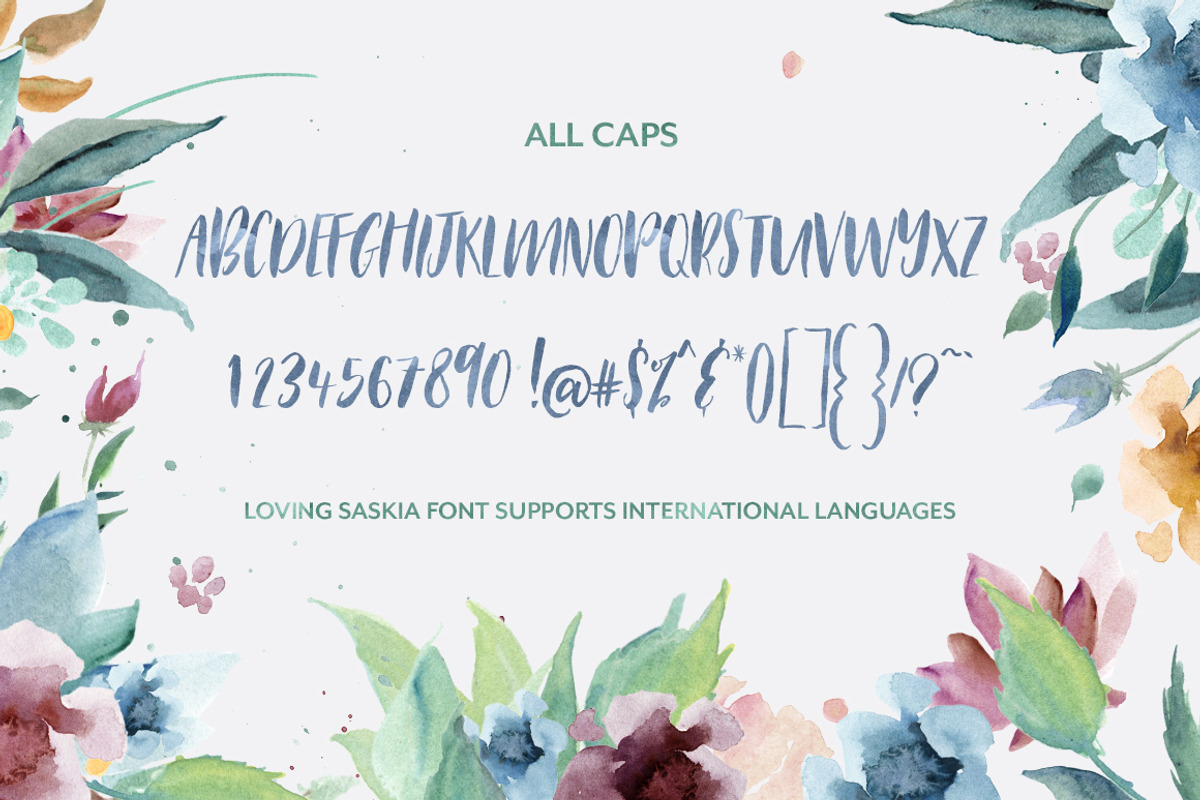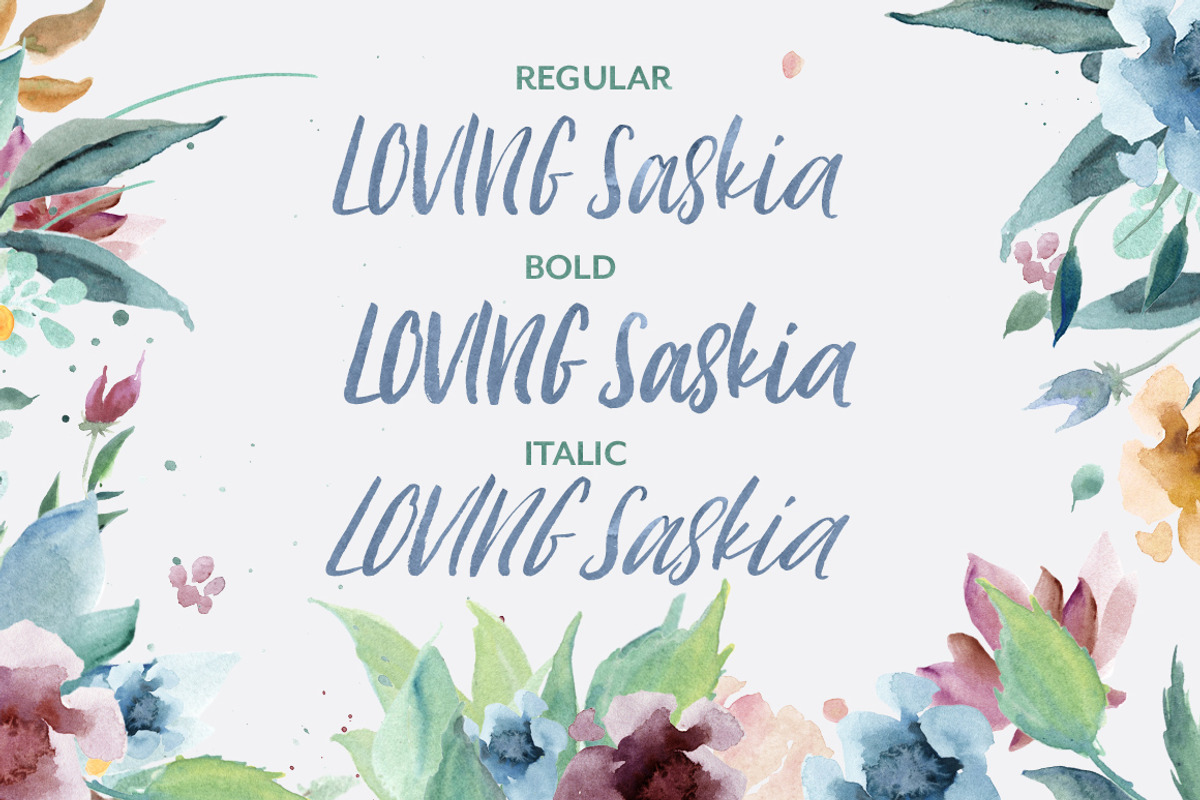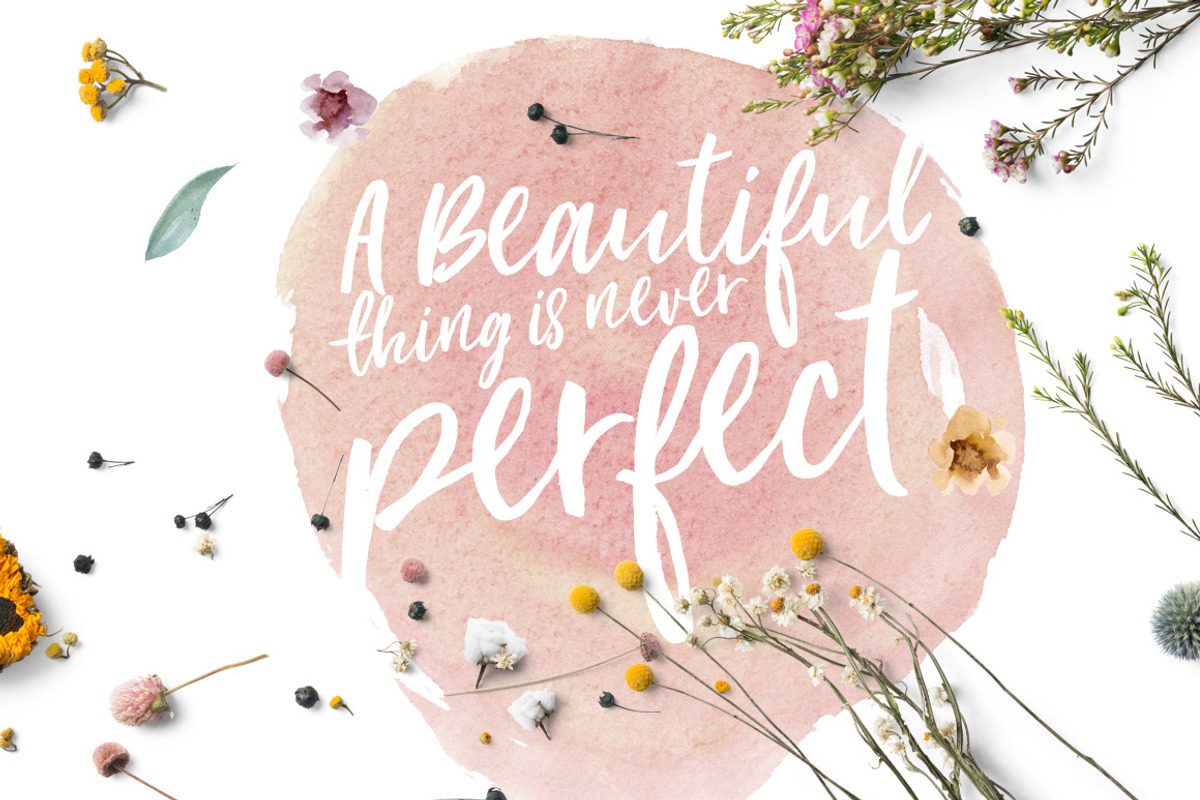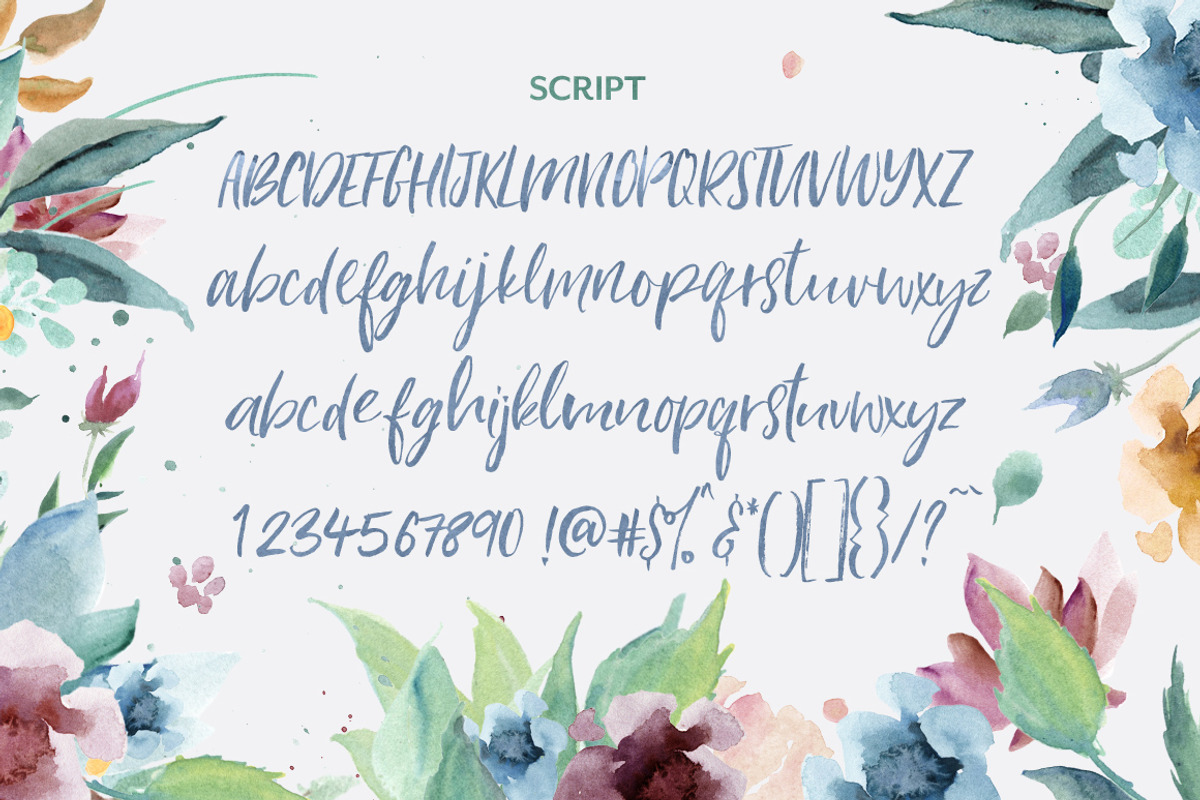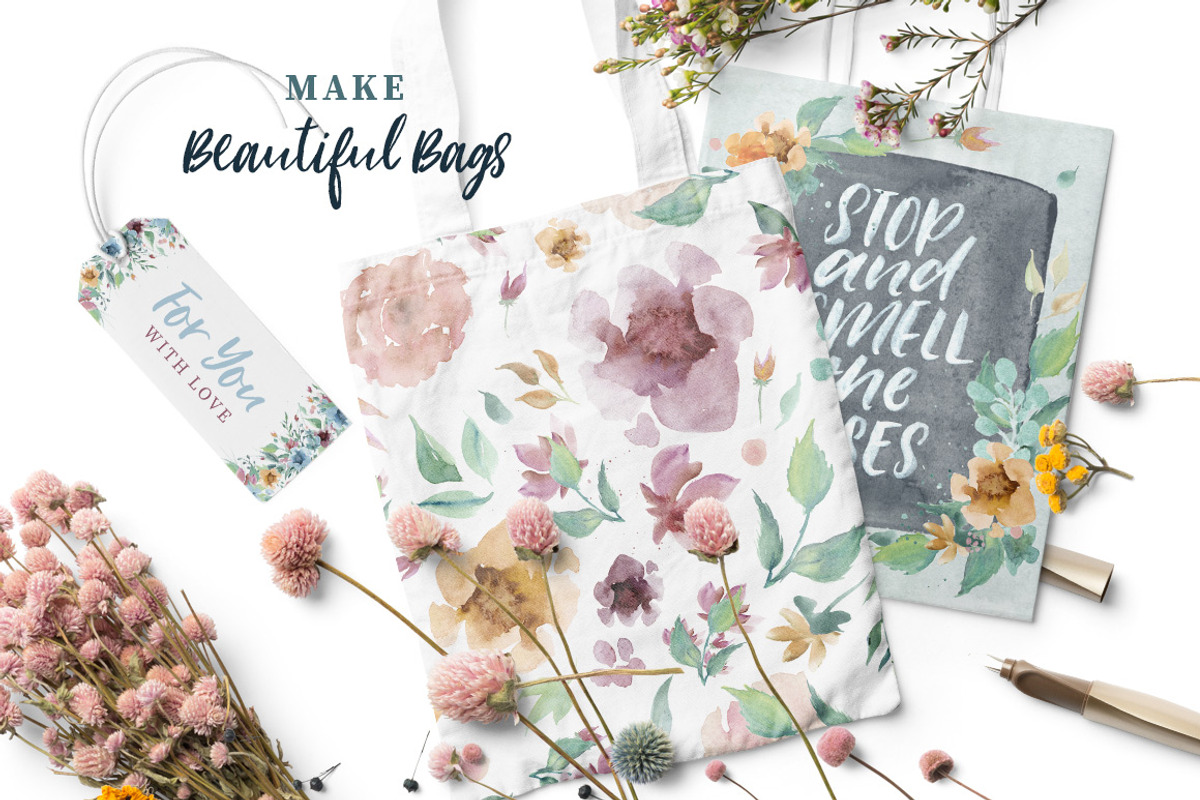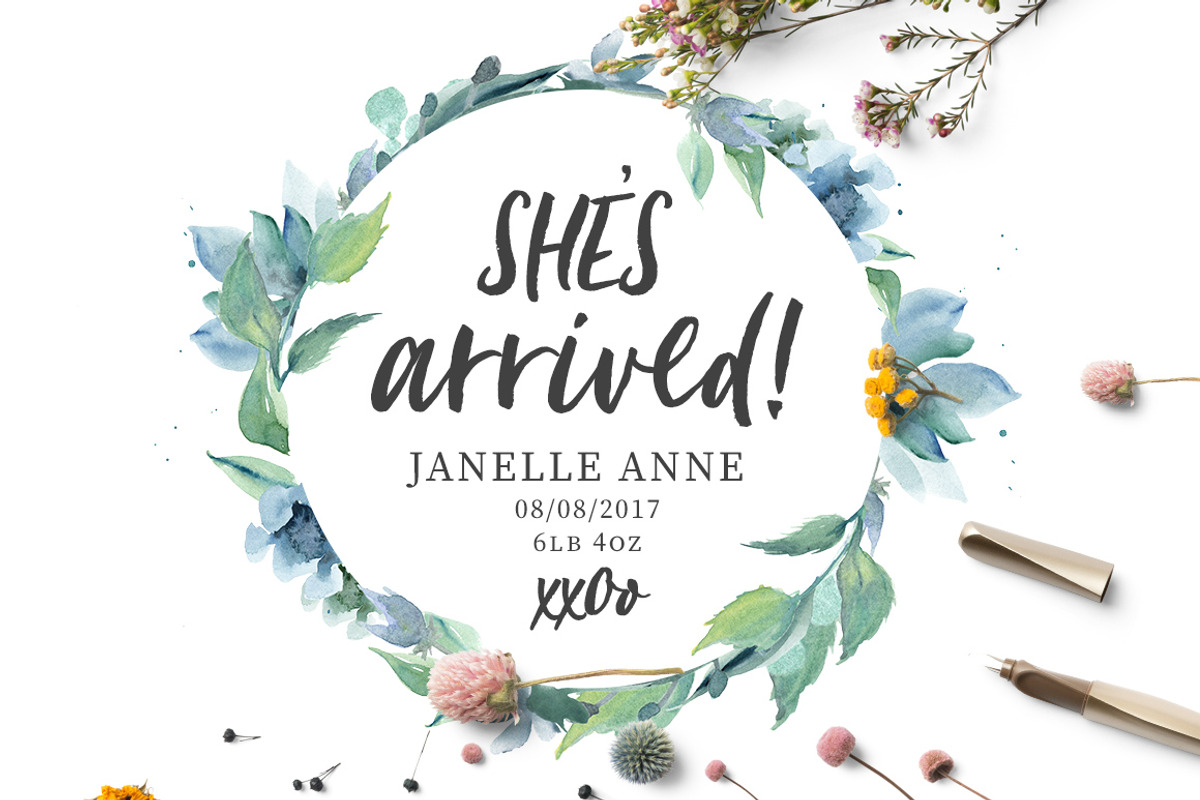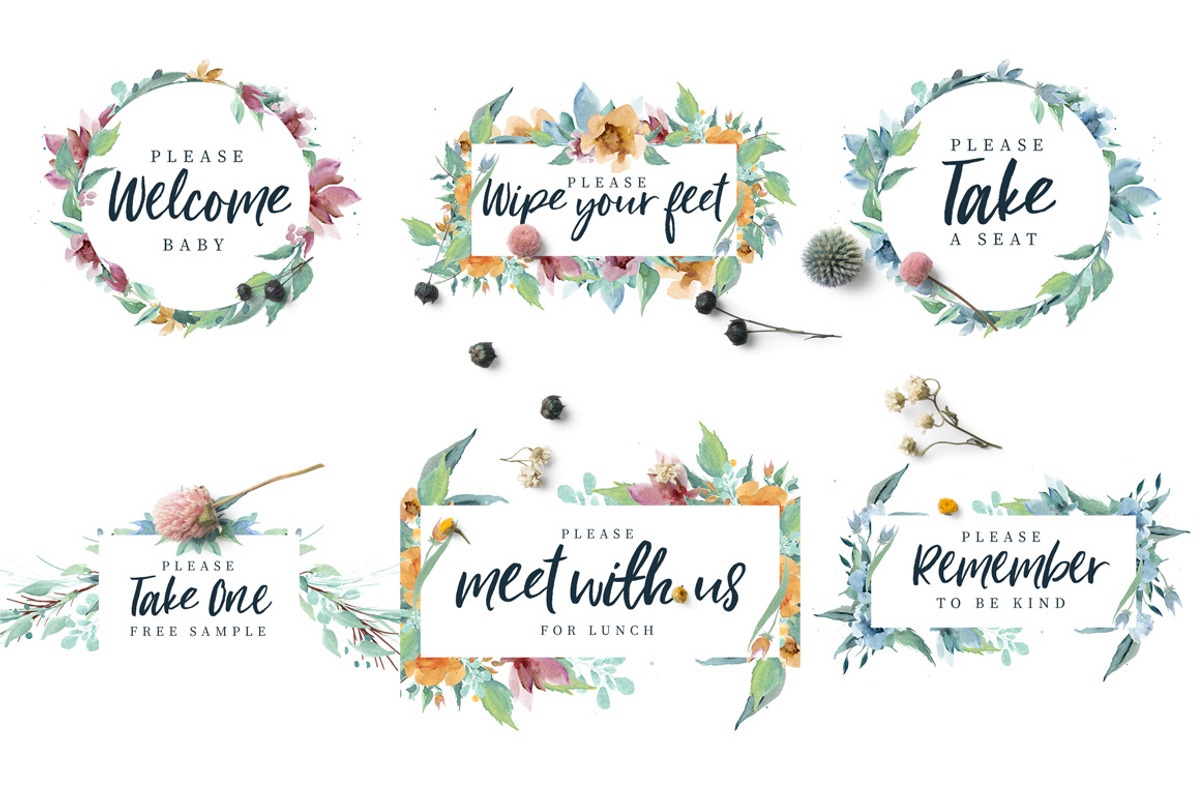
Loving Saskia Font & Graphics Bundle
NEW IntroducingLoving Saskia - a beautiful script font and all caps duo PLUS watercolor clipart and pattern bundle!
Loving Saskia font is a brush pen script font that's easy to read and looks amazing in lowercase or all uppercase. It is the perfect font for branding, invites, logos, quotes, posters, packaging, and so much more!
Loving Saskiacomes in Regular, Bold and Italic, plus Caps.
There is a full set of alternate lowercase letters, and can be accessed using Contextual Alternates activated in your program for this to work (using OpenType)
The alternates are a full set of letters specifically for ending words, and will fill in automatically when OpenType is enabled and the Contextual Alternates is activated.
Loving Saskia supports international languages.
The second part of this wonderful bundle is a huge set of hand painted watercolor clipart, wreaths, bouquets, arrangements, digital papers, and seamless patterns!
This bundle is huge - and the possibilities are endless.
Invites, planner stickers, fabric, cushions, blogs, branding, logos, weddings, scrapbooking, posters, packaging - the list goes on and on!
- The other font included as a bonus is an all caps font which pairs well with the script.